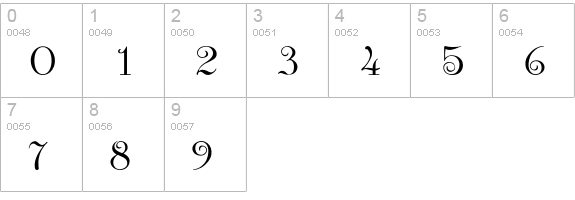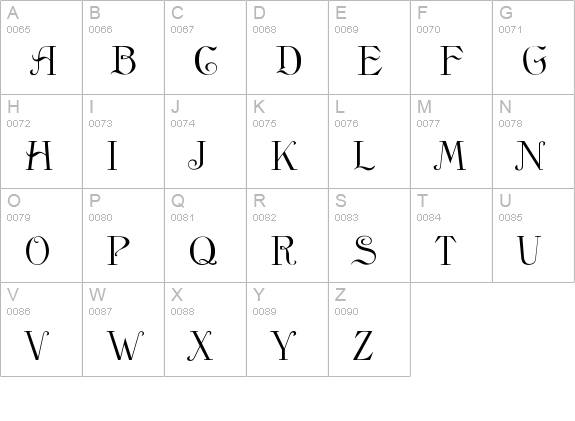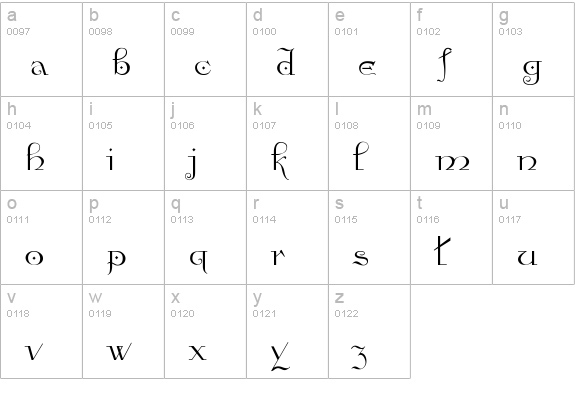
Angelo Font Details
Angelo font is a versatile and elegant typeface that exudes sophistication and charm. With its stylish and modern design, Angelo font is perfect for a wide range of design projects, from branding to editorial design. Its sleek lines and graceful curves create a sense of refinement and class, making it a popular choice among designers and creatives. What sets Angelo font apart is not only its aesthetic appeal but also its accessibility. This stunning font is available for free download at FontsMarket.com, allowing designers to easily incorporate it into their projects without any hassle. Whether you're working on a logo, poster, or website, Angelo font is sure to elevate your design and make a lasting impression. Don't miss out on this incredible opportunity to enhance your work with the beauty of Angelo font - download it today and let your creativity shine!